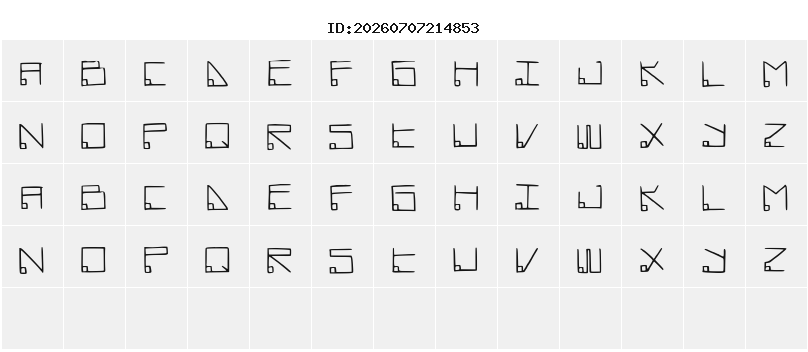
• Font Name: Datamost
• Designer: =^_^=
About Datamost.otf
Datamost.otf is a modern, elegant sans-serif font designed for ultimate readability and visual harmony. Perfect for branding, headlines, web design, and print materials.